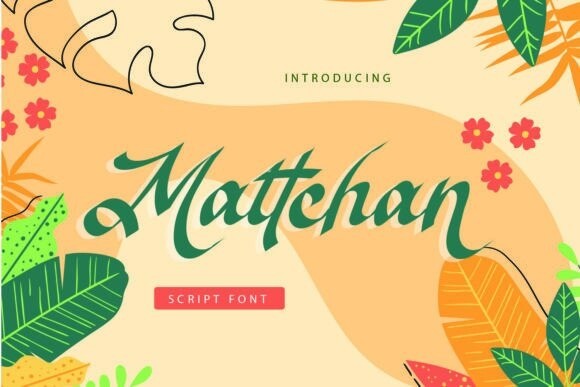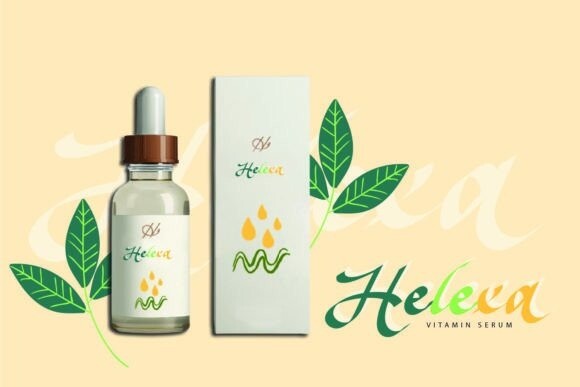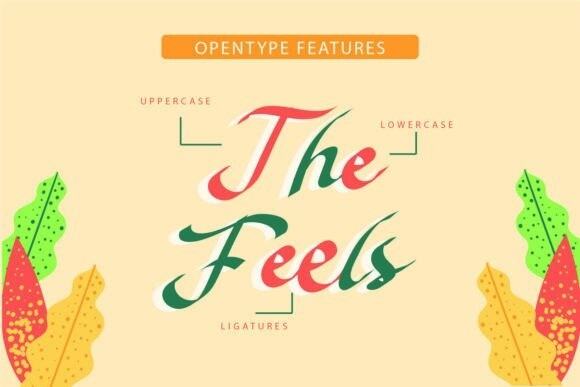
Mattchan Font
Introducing “Mattchan”, the exquisite and vintage handwritten font that harkens back to a bygone era. With its ornate curves and old-world charm, each letter is a work of art that captures the essence of a bygone time. Use this font to add a touch of nostalgia and sophistication to your designs and evoke a sense of vintage elegance.